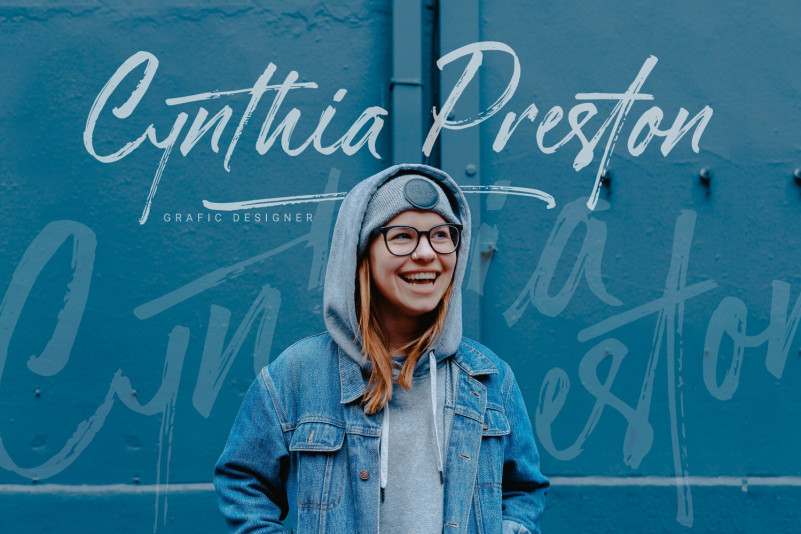
Gorgeous – Script Typeface
I am very pleased to introduce a new beautiful brush font. Suitable for use in title design or any needs. Gorgeous Script Typeface Font is designed and shared by Adhi Nugraha. It’s a brush font with a strong texture character.
It’s can also be used for various projects such as stationery invitations, social media, logos, weddings, branding, graphic design with additional swashes. and can be combined with various types of serif fonts to perfect the project you want to work on.